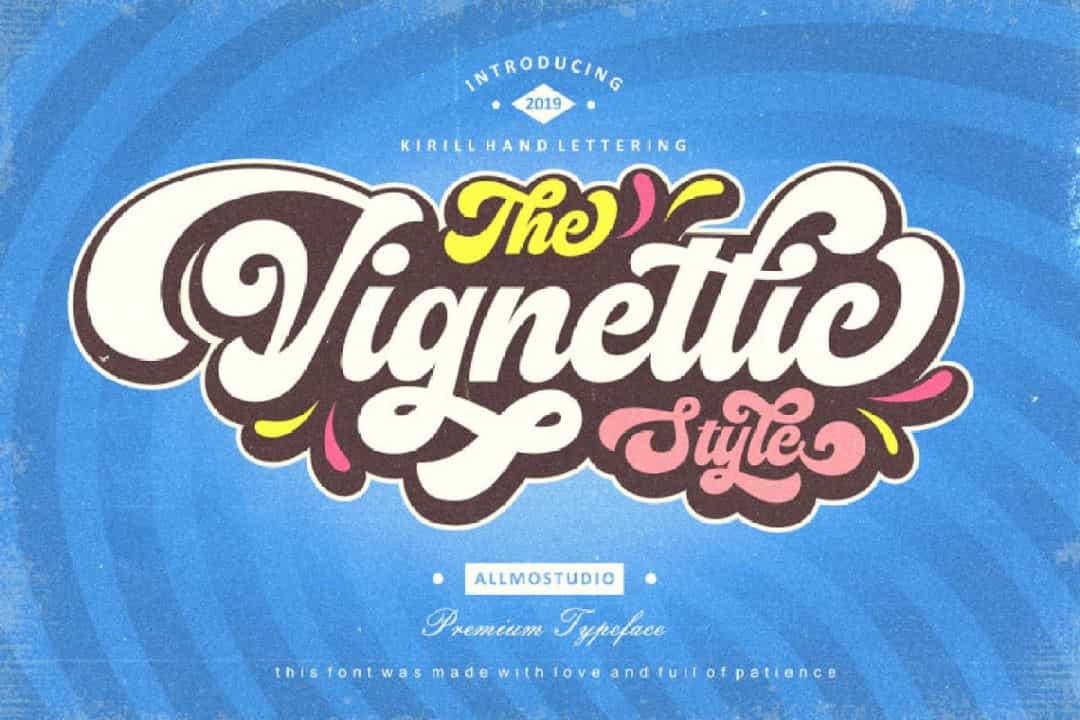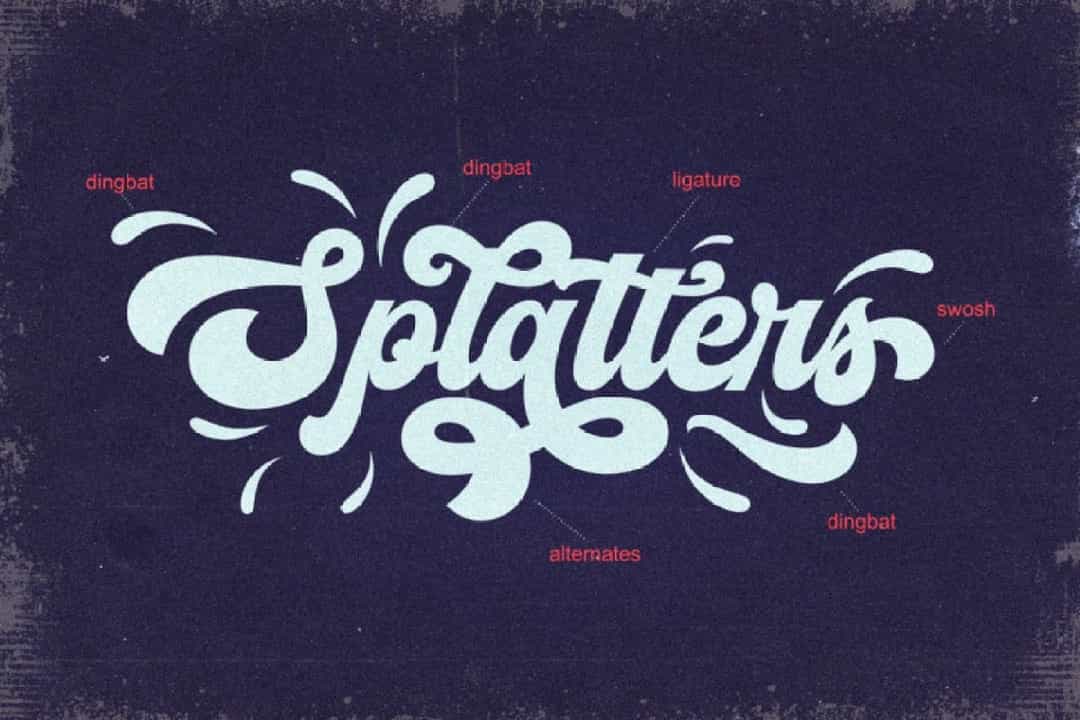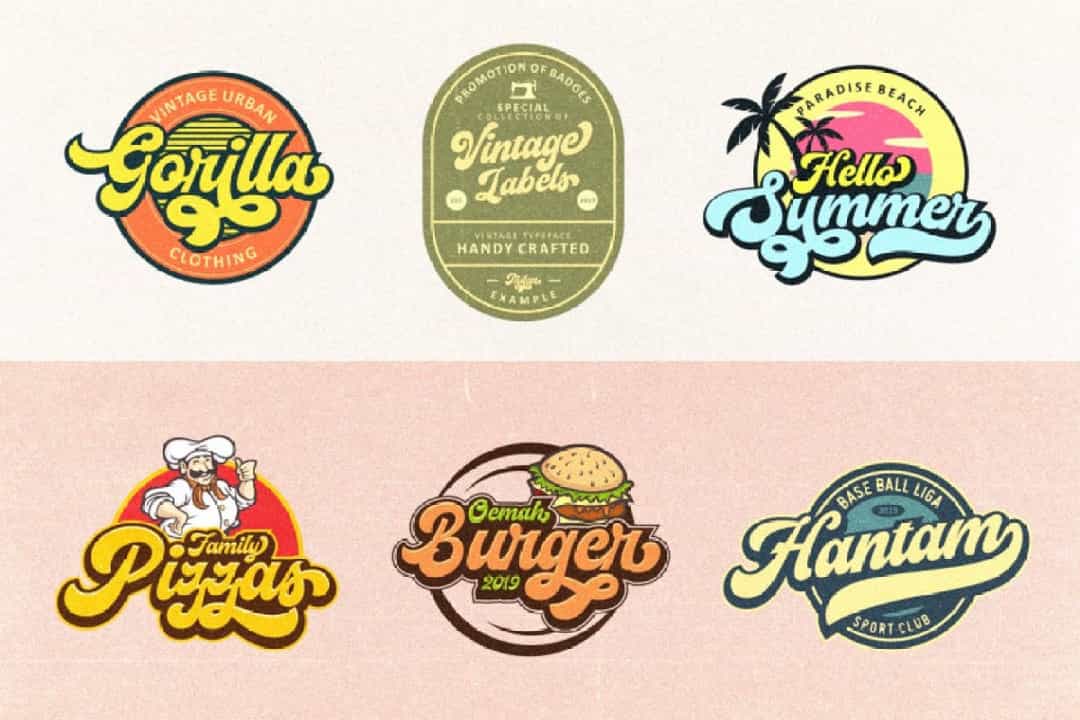
The style of the Vignettic Script Font is old-fashioned modern, contemporary, vintage. Based on badge and sign designs, the font set of Vignettic Script contains uppercase numbers, lowercase letters, punctuation signs, and multiple stylistic variants of the characters suitable for posters, logos, invitations, packaging cards, badges, apparel, etc., and labels.